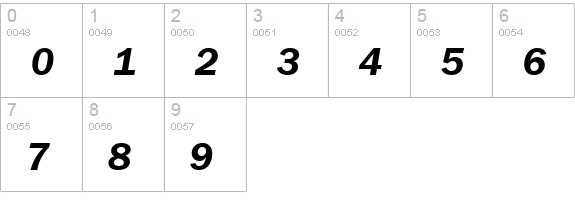
FranklinGothDemiCTT Italic Font Details
FranklinGothDemiCTT Italic is a distinctive, italic variant in the FranklinGothDemiCTT typeface family \xE2\x80\x94 well suited to design and typography projects.
FranklinGothDemiCTT Italic is a modern and sleek font that exudes sophistication and elegance. Its bold and italicized design adds a touch of flair to any project, making it a versatile choice for various design needs. This font is perfect for creating eye-catching headlines, stylish logos, or sleek branding materials. What sets FranklinGothDemiCTT Italic apart is not only its striking appearance but also its versatility and readability. Whether used in print or digital media, this font maintains its clarity and impact, ensuring that your message is conveyed effectively. The best part? FranklinGothDemiCTT Italic is available for free download at FontsMarket.com. This means you can easily access this stylish font and incorporate it into your projects without any cost. Don't miss out on the opportunity to elevate your designs with this standout typeface. Download FranklinGothDemiCTT Italic today and take your creations to the next level!